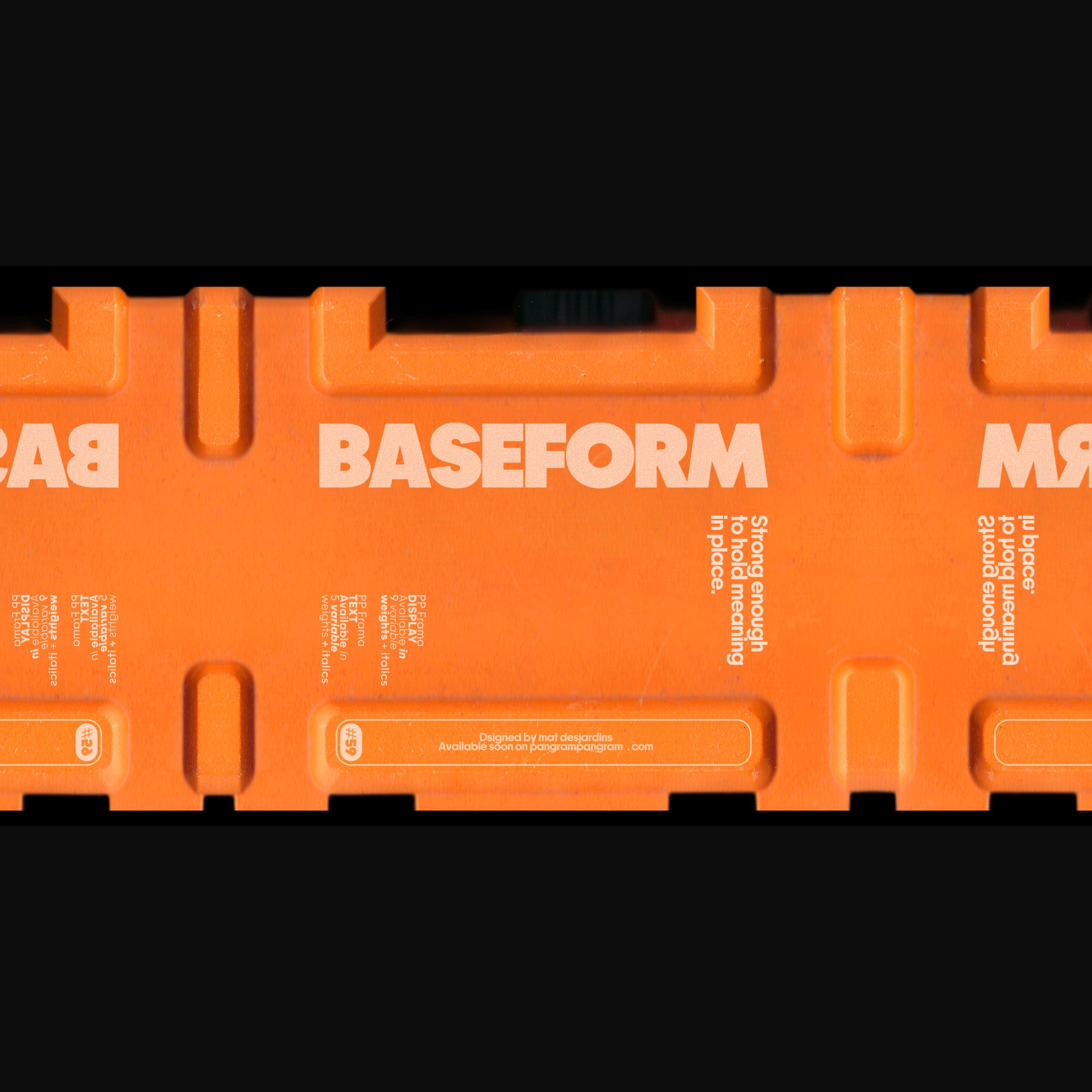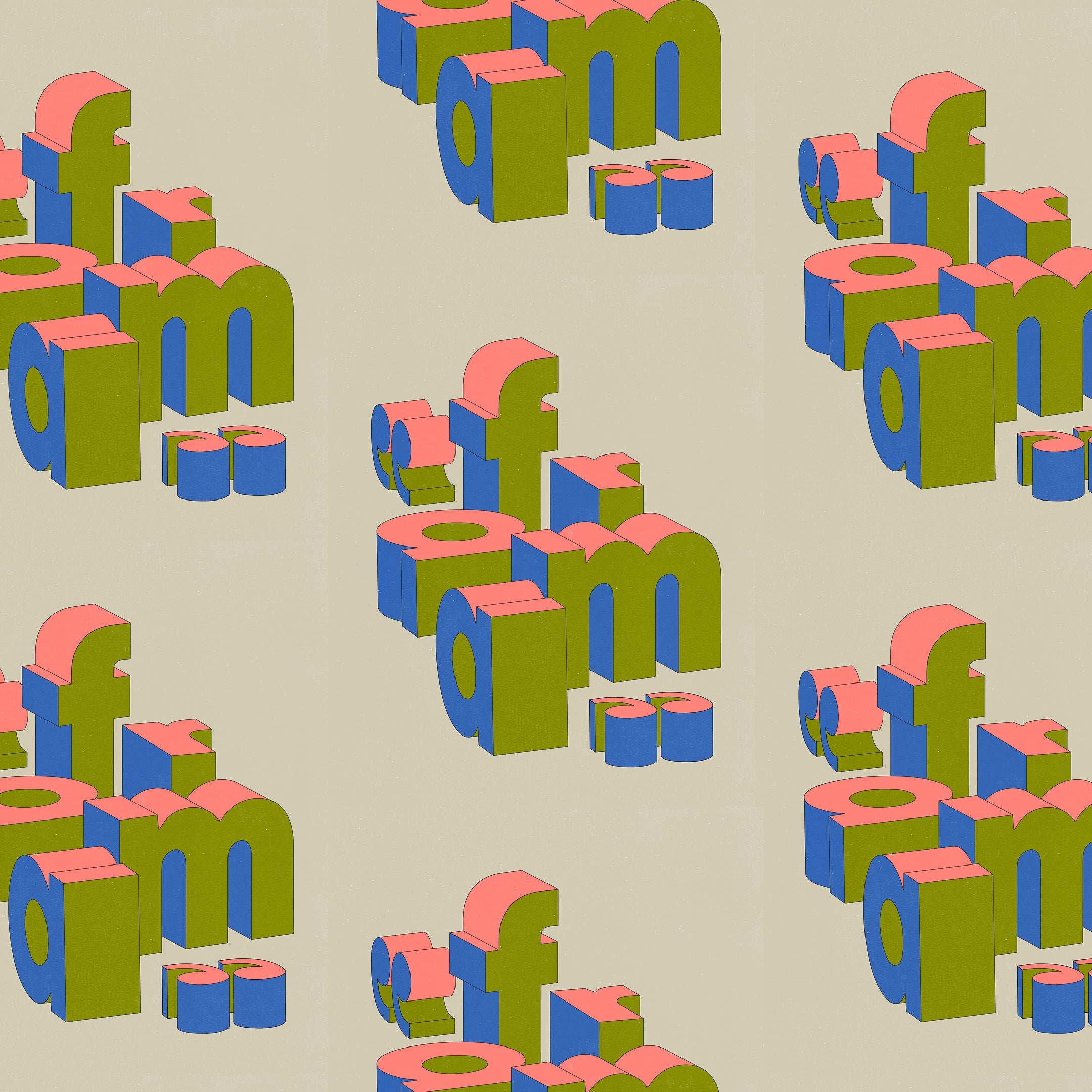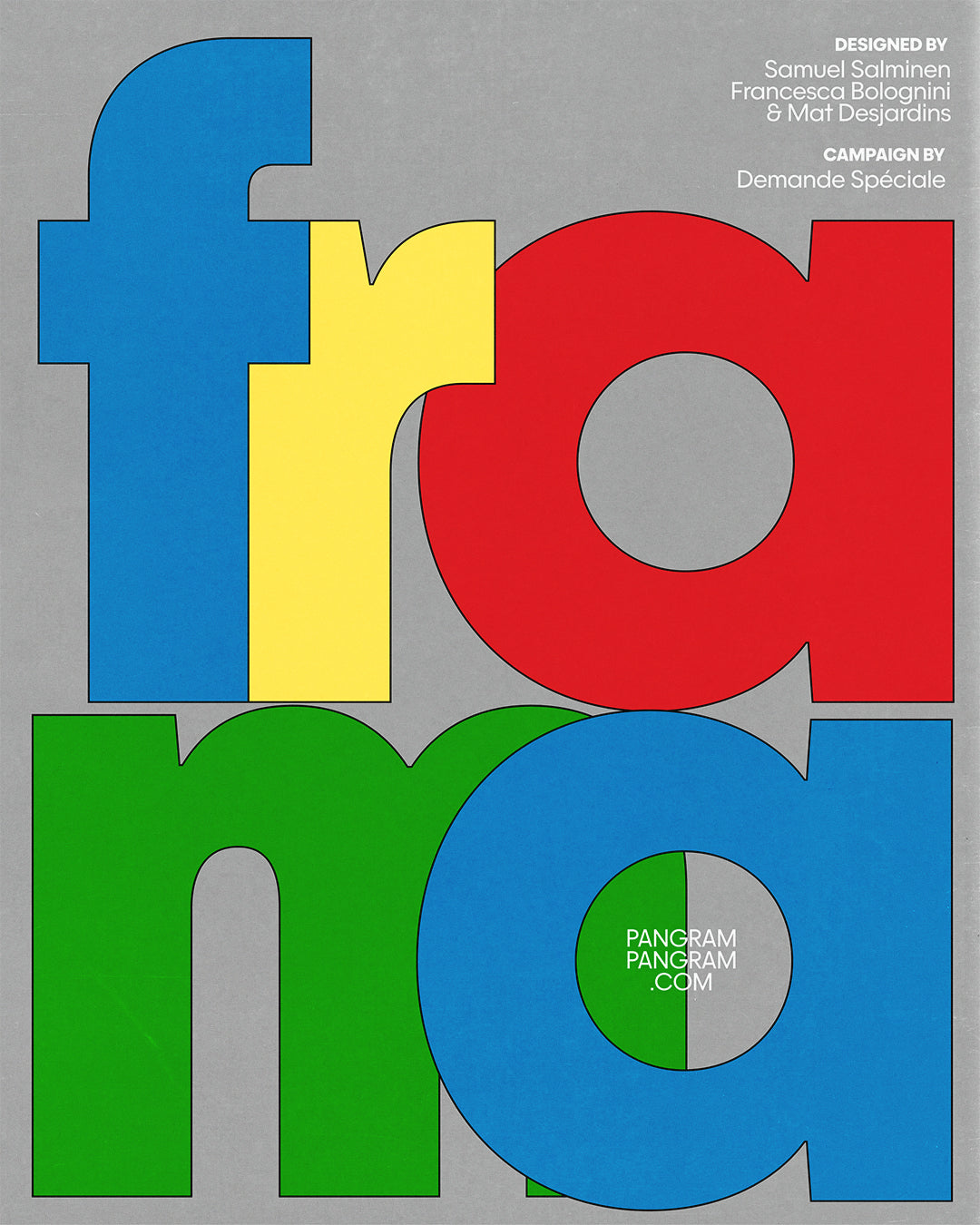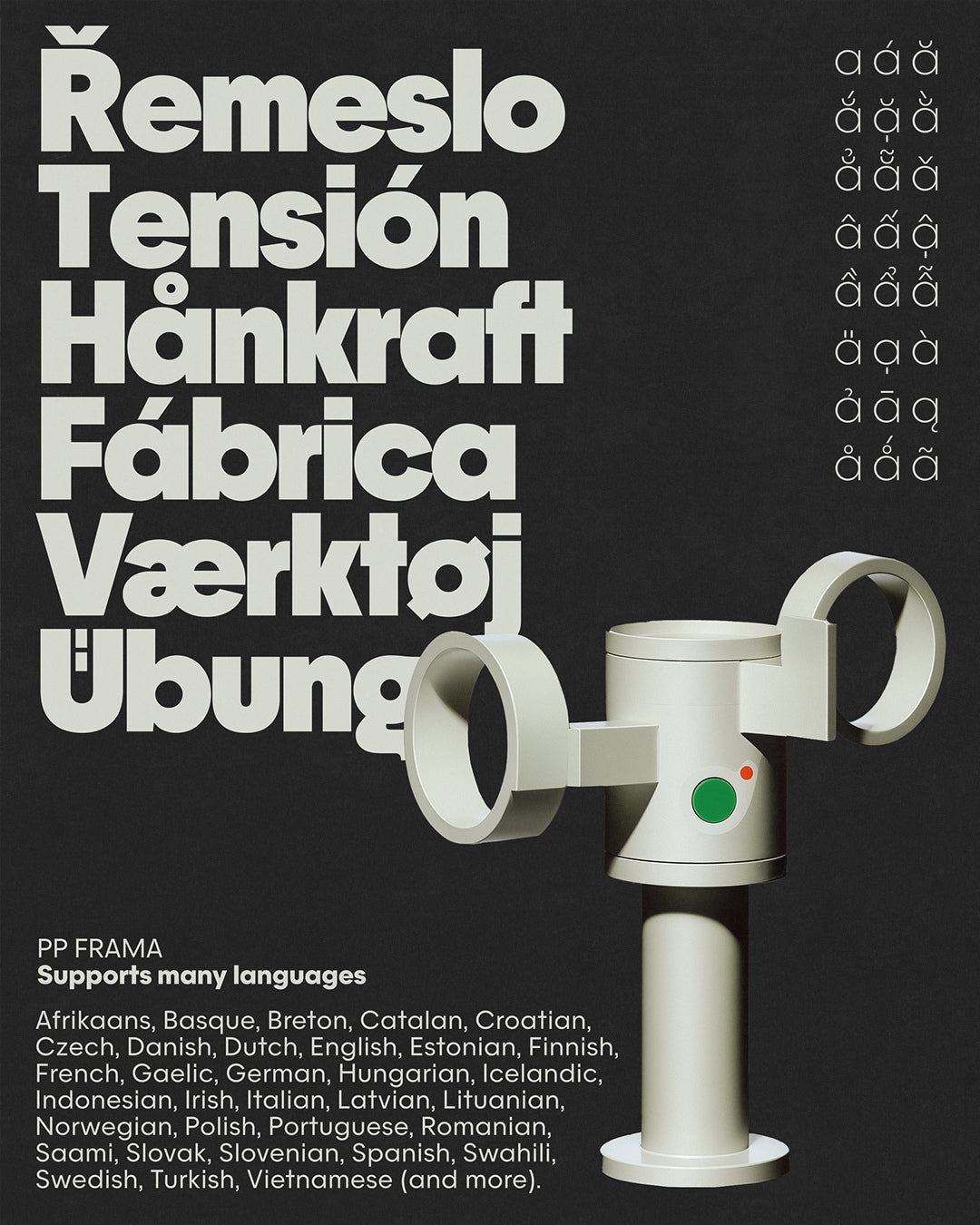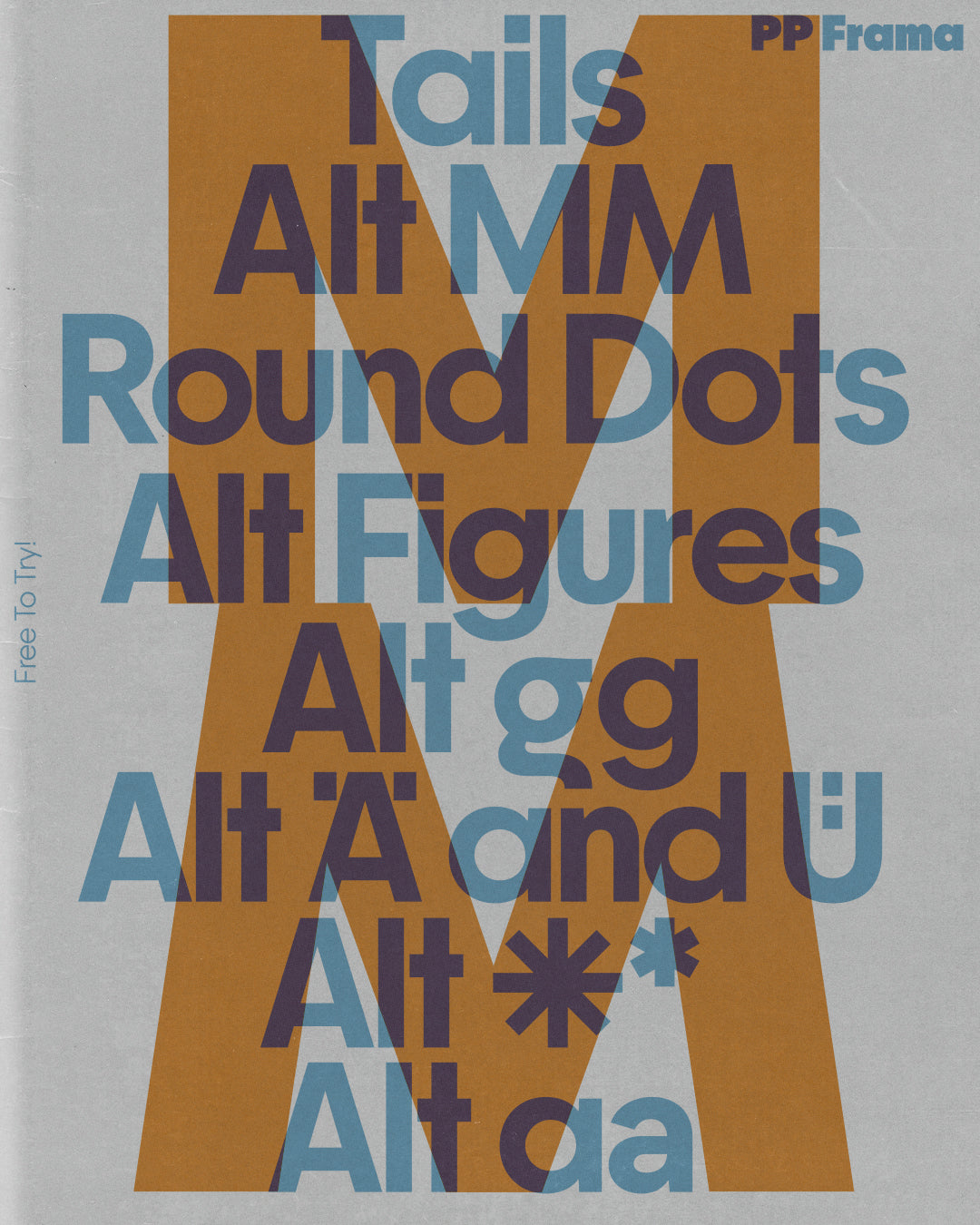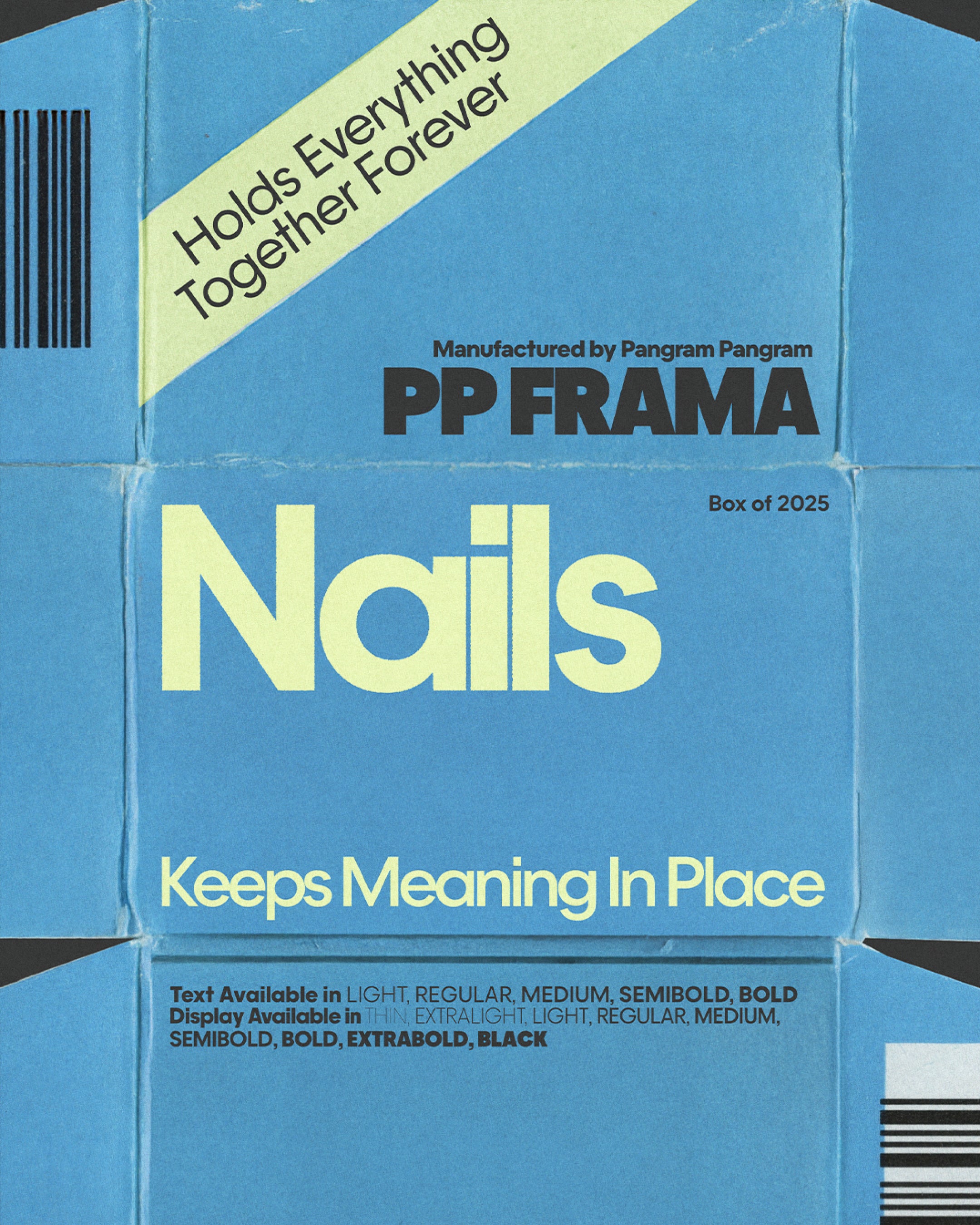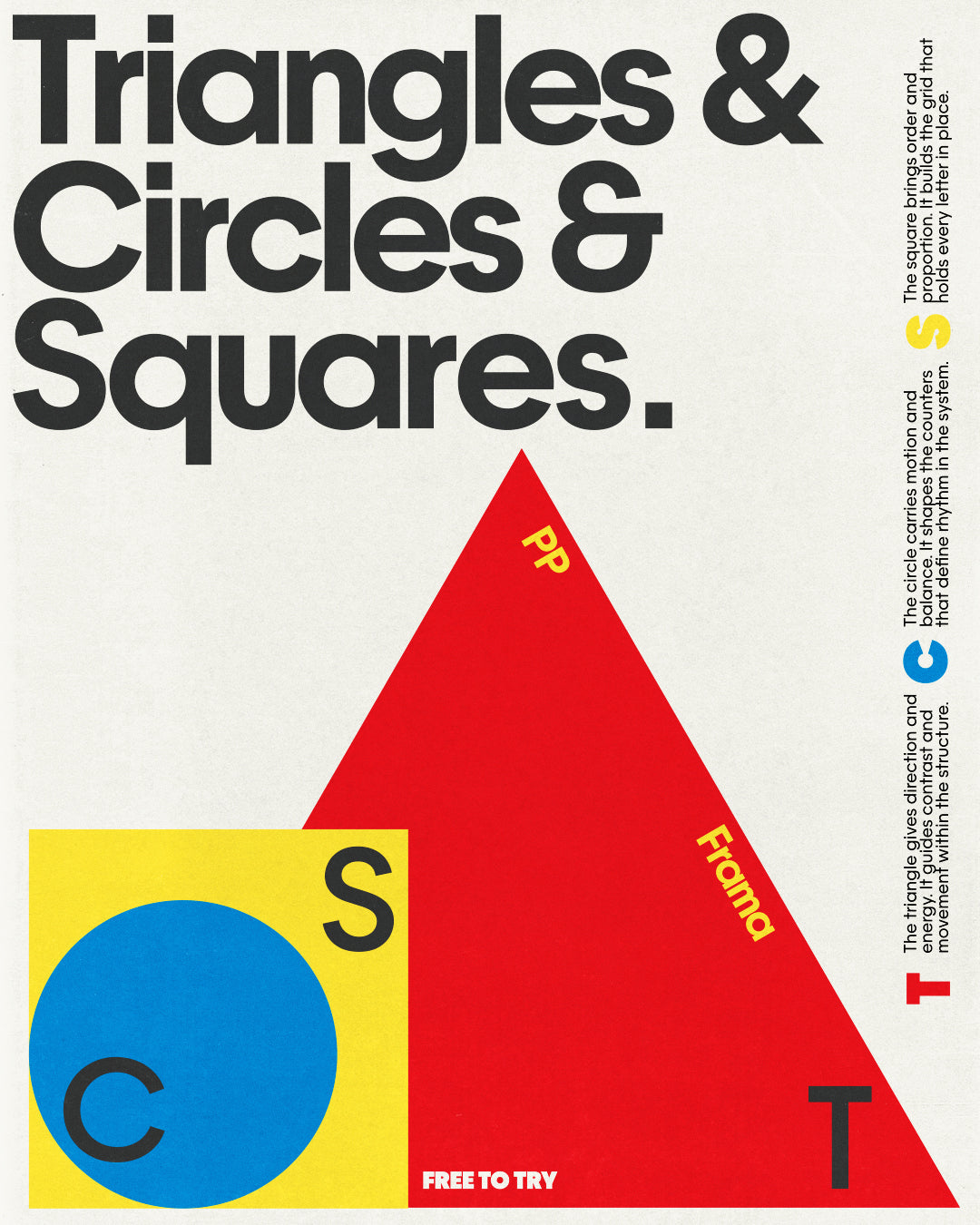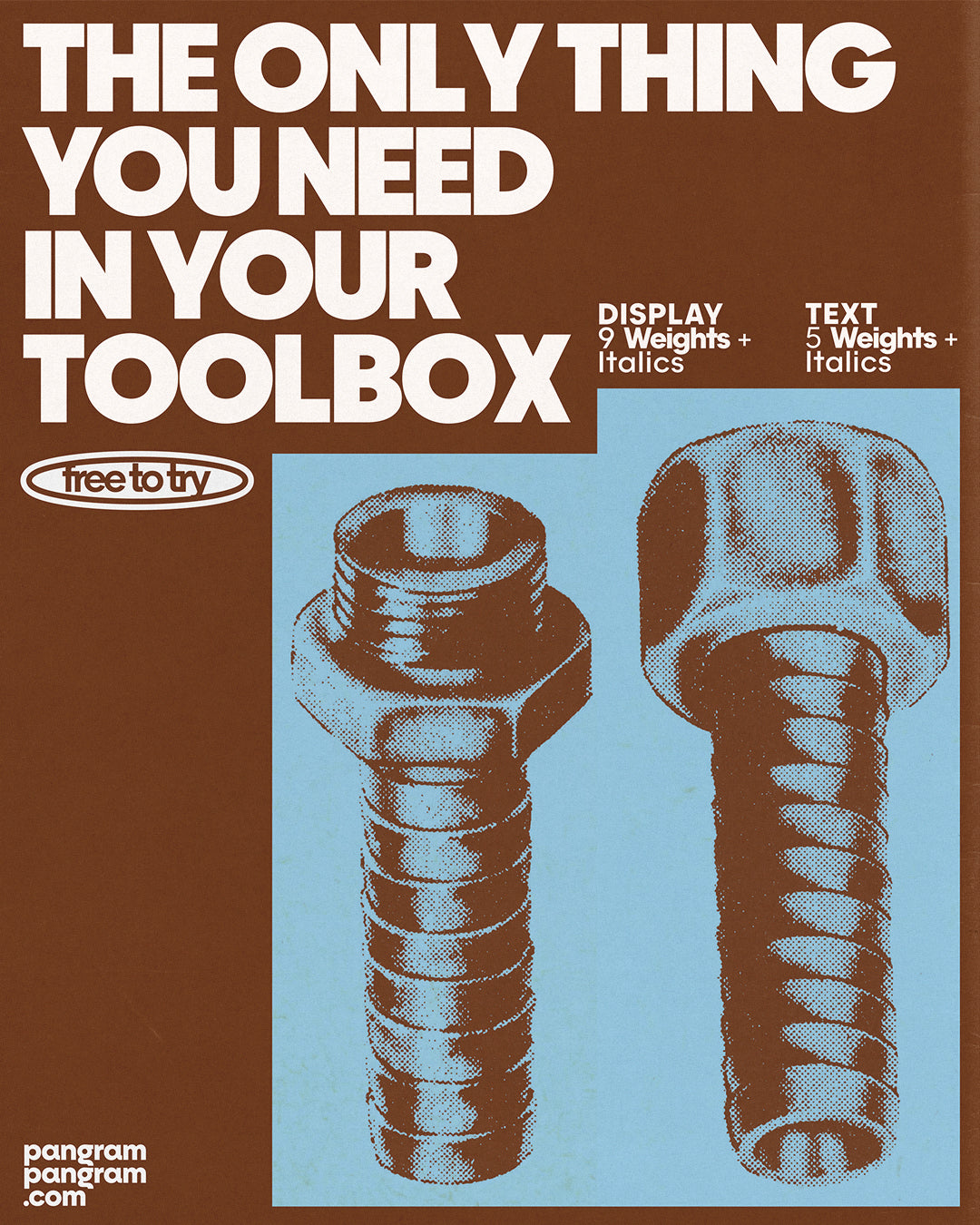
Frama
Rooted in 20th-century modernism
The clarity of Futura and the expressive geometry of Avant Garde
Circles, lines, and counterforms meet in a quiet system of balance, a subtle homage to geometry’s enduring role in design. Beneath its apparent simplicity lies a careful play of proportion, bringing both precision and warmth to each word. Designed in Display and Text cuts, Frama moves fluidly across scales and weights, with stylistic alternates that open up a wide field of expressive nuance.
Frama steps in where Futura once led—the modernist dream reimagined for a new frontier. Its geometry speaks the same clean, orbital language, but with a softer gravitational pull. Built for clarity, balance, and human presence, Frama feels equally at home on the hull of a spacecraft or in the quiet expanse of digital space. If Futura was the font of the Space Age, Frama is the font for what comes after. Rooted in the legacy of early 20th-century modernism, Frama is a geometric sans serif typeface that bridges clarity and character. Drawing inspiration from timeless classics like Futura and Avant Garde, Frama revisits their ideas through a contemporary lens—where precision meets emotion, and geometry becomes a language of design. Its circles, lines, and counterforms align in quiet harmony, creating a typographic system that feels both rational and human. Frama’s design explores the essence of modernist typography, celebrating geometry’s enduring role in visual communication. Every letterform is crafted with intention: the tension between perfect shapes and subtle irregularities gives the typeface warmth, rhythm, and individuality. What appears simple at first glance reveals a complex play of proportion and spacing, balancing functional readability with refined detail. Available in both Display and Text cuts, Frama adapts seamlessly across scales and media. Its multi-weight type system allows for flexible use—from editorial layouts and branding systems to digital interfaces and motion design. The Display version accentuates its geometric construction with sharper contrast and expressive alternates, while the Text version softens forms for longer reading comfort without losing its distinctive structure. Frama’s stylistic alternates open up a wide field of expressive nuance, inviting designers to experiment with tone and rhythm. Whether used in minimal compositions, bold typographic posters, or refined brand identities, Frama maintains a consistent visual voice: clean, modern, and unmistakably crafted. In essence, Frama is not just another geometric sans serif—it’s a contemporary reinterpretation of modernist ideals. It captures the spirit of early 20th-century design movements while addressing the needs of today’s typographic landscape. Designed for designers who value both clarity and expression, Frama brings balance, warmth, and modern precision to every word.
Frama is variable
With italics
Go deeper and witness all the inner workings of the geometric type.
Alternate Tails
Alternate a
Alternate M
Round dots
Alternate g
Alternate figures
Alternate *
Alternate & €
Standard ligatures
A classic geometric, refined for today.
PP Frama is a contemporary geometric sans serif rooted in the legacy of early 20th-century modernism. Drawing inspiration from the structural clarity of Futura and the expressive geometry of Avant Garde, Frama builds on these references to establish its own distinct rhythm: balanced, calm, and quietly confident.
At its core, Frama is shaped by simple geometric principles: circles, straight lines, and carefully considered counterforms working together in a restrained system of proportion. This underlying geometry gives the typeface its precision, while subtle optical adjustments introduce warmth and softness, preventing it from feeling rigid or cold.
Designed with versatility in mind, Frama is available in both Display and Text cuts, allowing it to perform across a wide range of applications, from bold editorial headlines and branding to long-form reading and interface design. The inclusion of stylistic alternates further expands its expressive range, offering designers flexibility without compromising consistency.
Refined yet approachable, Frama is a modern geometric typeface built to scale effortlessly, adapt naturally, and bring a sense of quiet order to contemporary design systems.